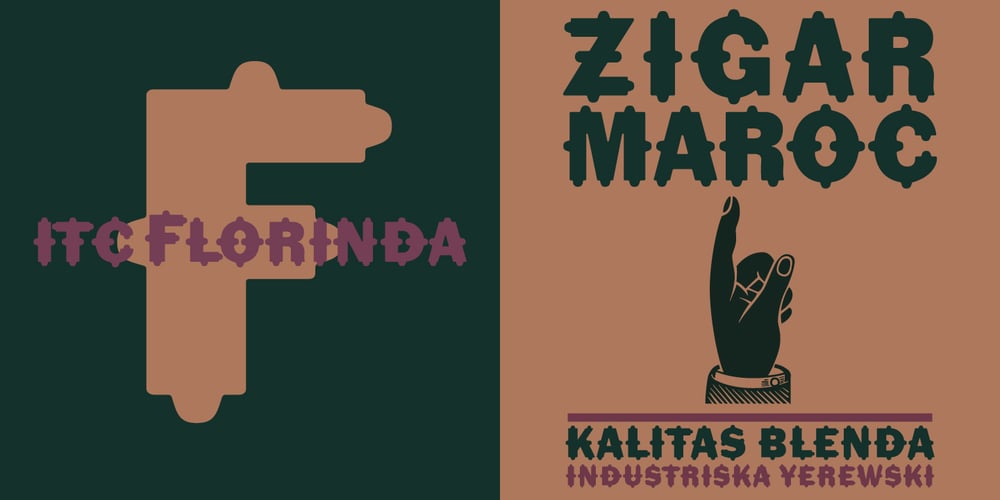
ITC Florinda
ITC Florinda font
ITC Florinda Font Family was designed by Luis Siquot and published by ITC. ITC Florinda contains 1 styles and family package options. ITC Florinda was designed by Luis Siquot in 1997 and consists exclusively of capital letters. The basic forms were influenced by old favorites like Franklin Gothic, but Siquot ornamented the classic forms with symmetrical knobs which look like pieces of lead left over after pouring the forms. This gives the figures a playful, constructed look. When used in a text, the horizontal lines seem to come together to draw a fine line through the middle of the lines of text, giving it an ornamented character. ITC Florinda should be used exclusively for headlines or display.